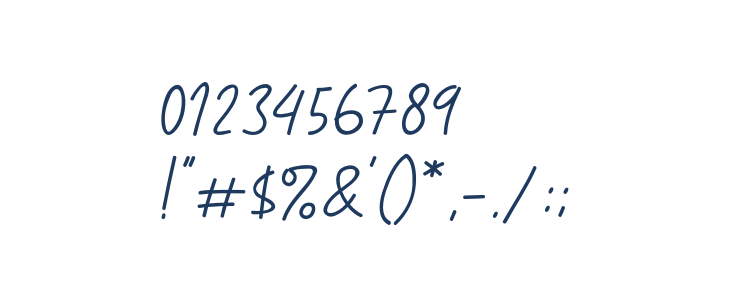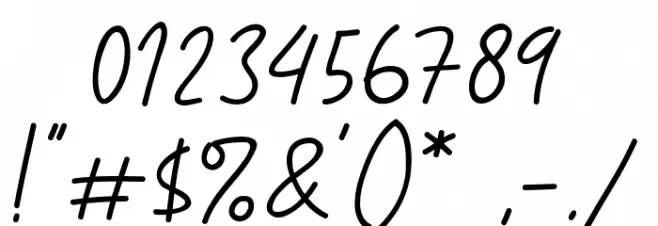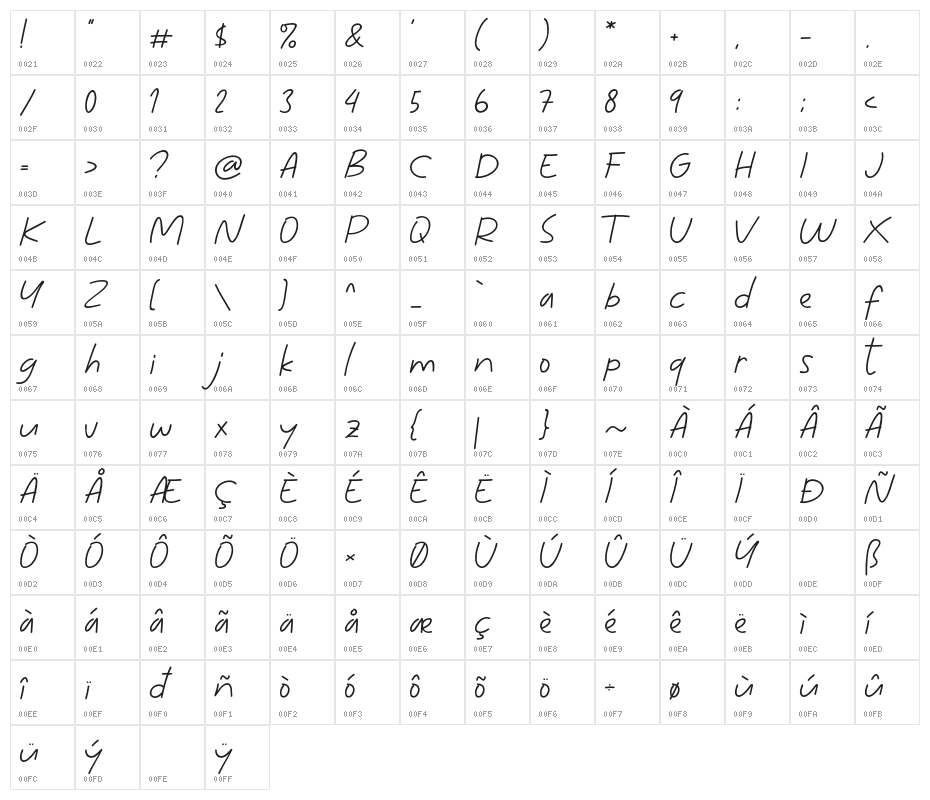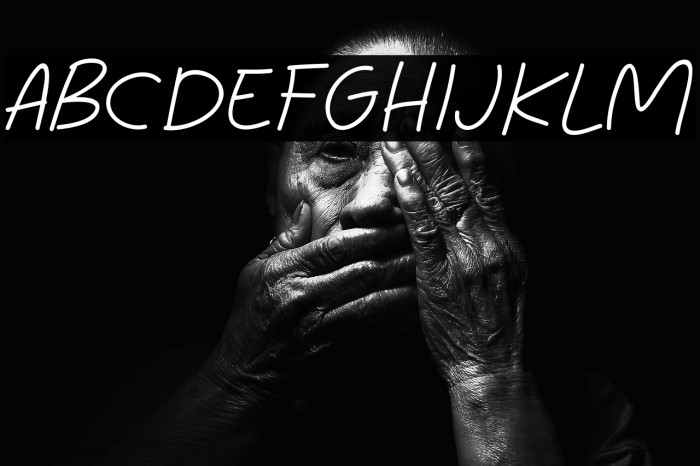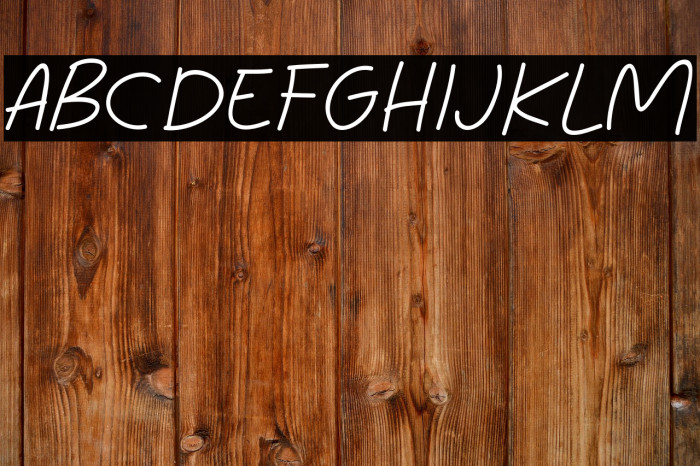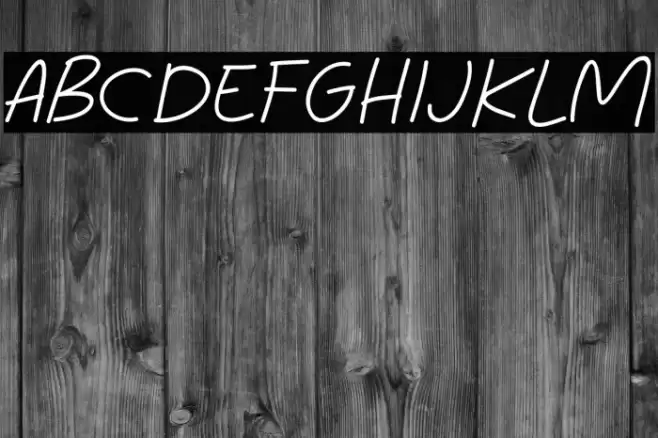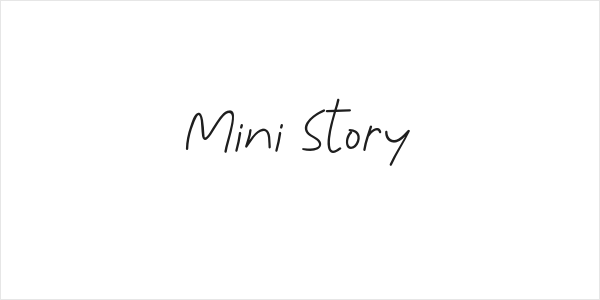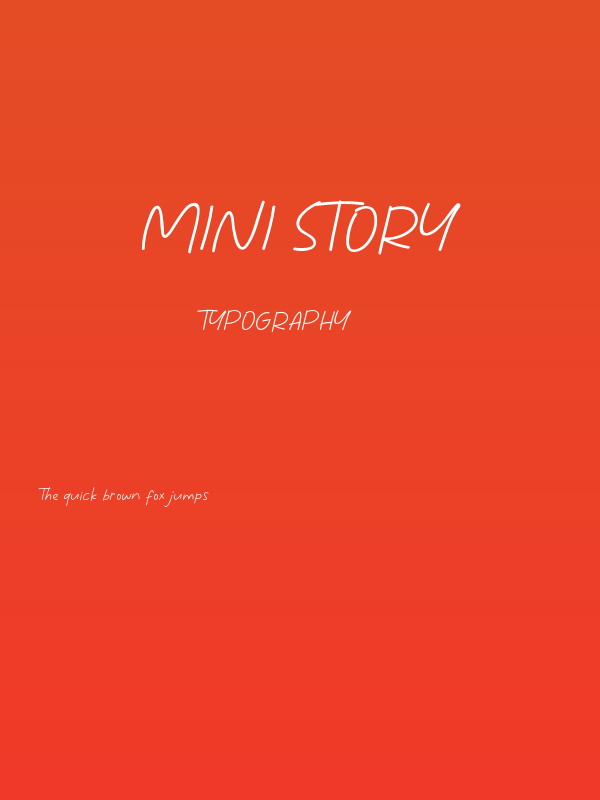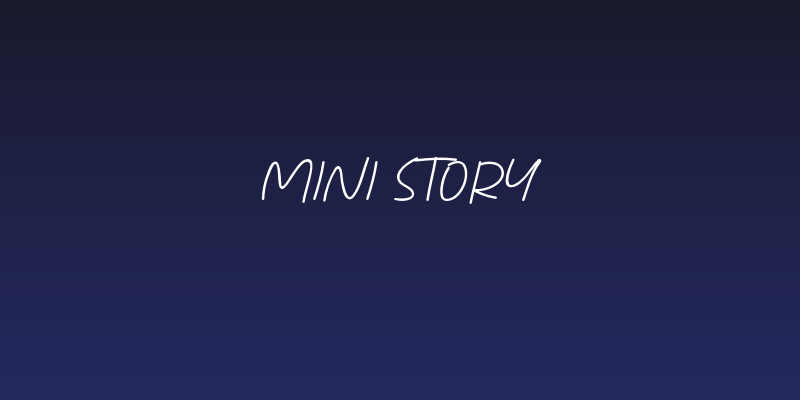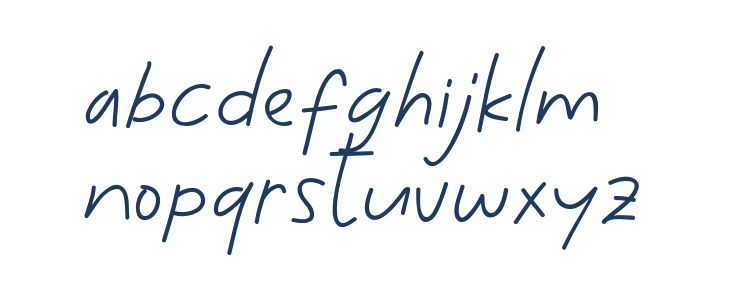
Mini Story Font
Mini Story Description
This font features a casual, handwritten style with smooth, flowing lines that give it a relaxed and approachable feel. The characters are slightly slanted, adding a dynamic and informal touch. Uppercase and lowercase letters maintain a consistent style, with rounded edges and a slight tilt to the right. The numerals and special characters follow the same aesthetic, ensuring uniformity across all glyphs. This font's design is reminiscent of personal handwriting, making it ideal for projects that require a personal or intimate touch.
| Use Case | Invitations, Greeting cards, Personal notes |
| Proposed Projects | Ideal for personal notes, invitations, greeting cards, and informal branding projects. |